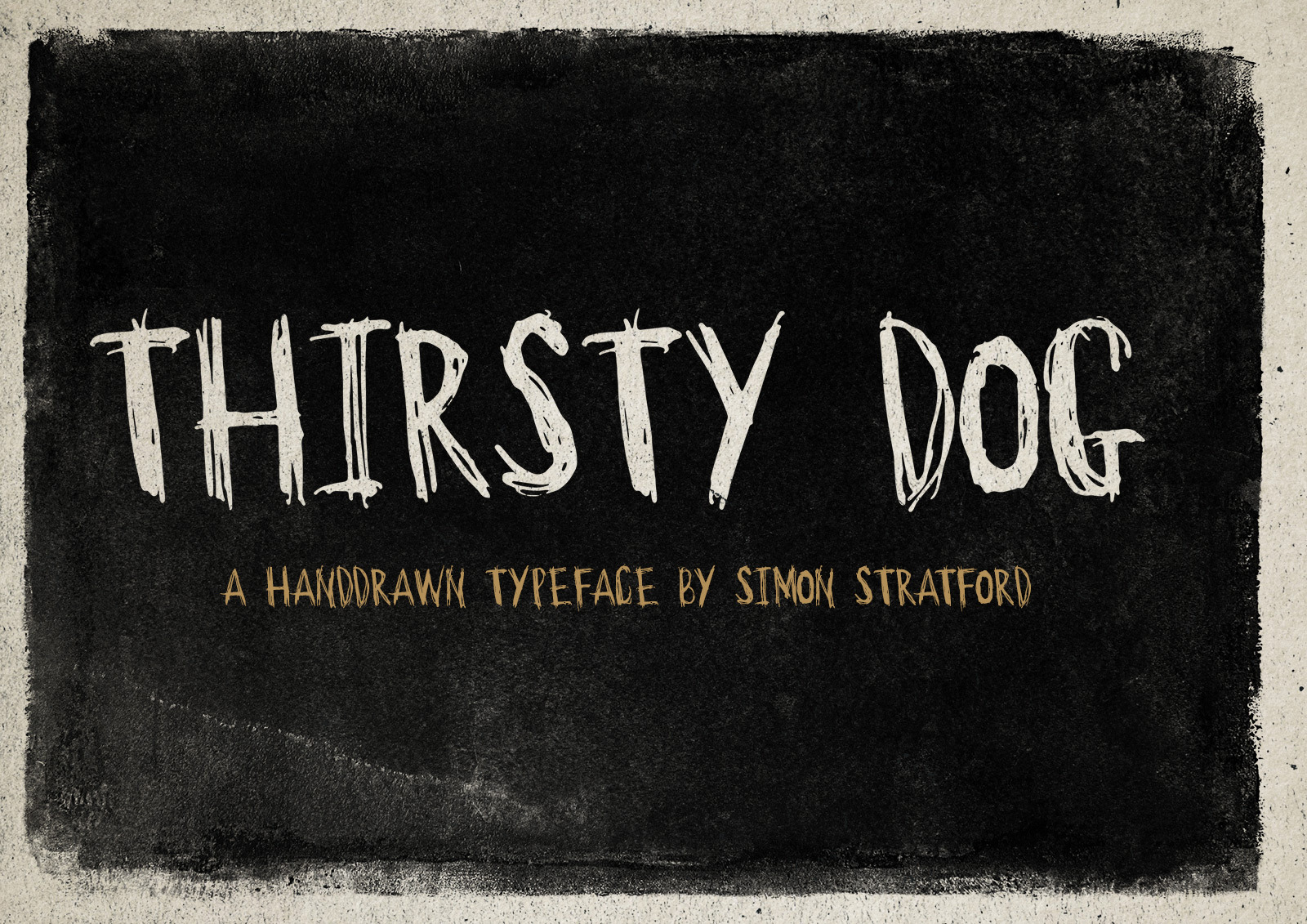
Display font Thirsty Dog
Thirsty dog is a messy spontaneous display typeface! It was created in a hurry it's untidy and barely legible. 100% handmade.
And that was the point, I wanted it to look scratchy and messy. I created it with an old ink nib and pot of ink—and tried to draw it as fast as I could. So here it is Thirsty Dog.
It’s ideal for use over images (like in my examples) or anything that you want to look spontaneous.
The font only includes uppercase letters, it has only 95 glyphs including numbers, punctuation and basic symbols.
It looks better at larger font sizes, the format is .otf.